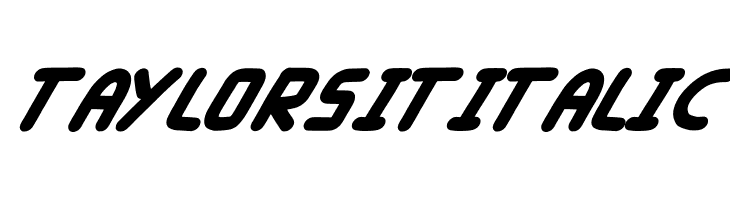
A playful, handwritten font with a casual and friendly style.
A playful, handwritten font with tall, narrow characters and a casual vibe.
A playful, hollow, hand-drawn font with a whimsical and informal style.
A sketch-like, hand-drawn font with dynamic, jagged strokes.
A playful, hand-drawn uppercase font with a quirky and whimsical style.
A bold, distressed font with a playful, hand-drawn appearance.
A set of stylized media and technology format logos.
A playful, thin handwritten font with a casual and friendly style.
A playful, hollow font with rounded, outlined characters and a casual vibe.
A playful, rounded font with smooth lines and a casual, friendly style.
A bold, geometric font with a modern and structured design.
A modern, geometric font with bold lines and unique shapes.
A geometric, modern font with angular lines and a futuristic style.
A geometric, modern font with sharp angles and clean lines.
A bold, italicized font with geometric and angular design elements.
A bold, classic serif font with strong, pronounced strokes.
A decorative font with a geometric, triangular pattern creating each character.
A bold, calligraphic script font with dynamic, sweeping strokes.
A bold, decorative font with a stitched, patchwork design.
A dynamic, brush-style font with expressive strokes and artistic flair.
A bold, decorative font with a playful dotted pattern.
A decorative font with ribbon-like embellishments on each character, perfect for festive designs.